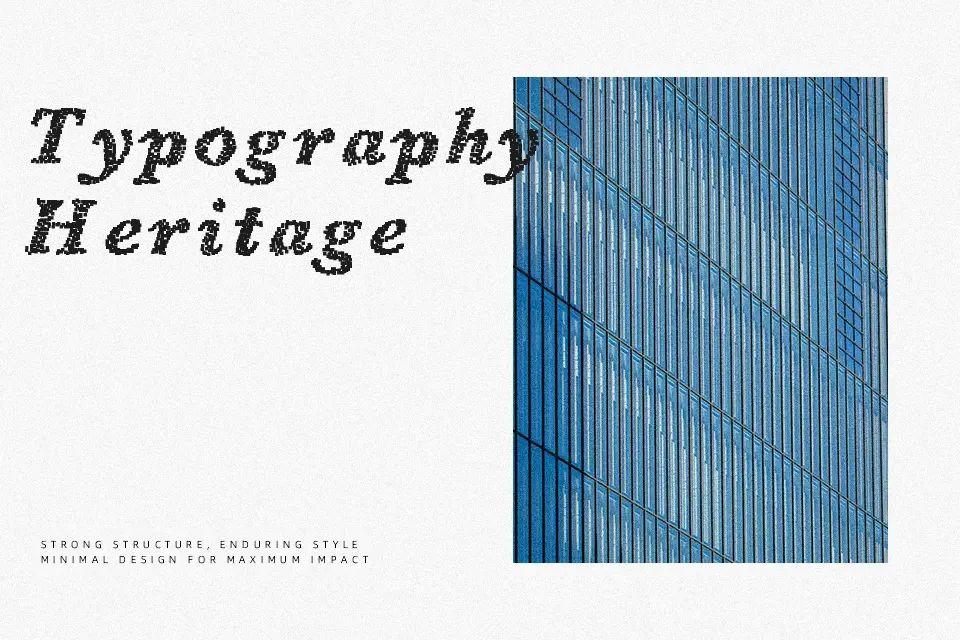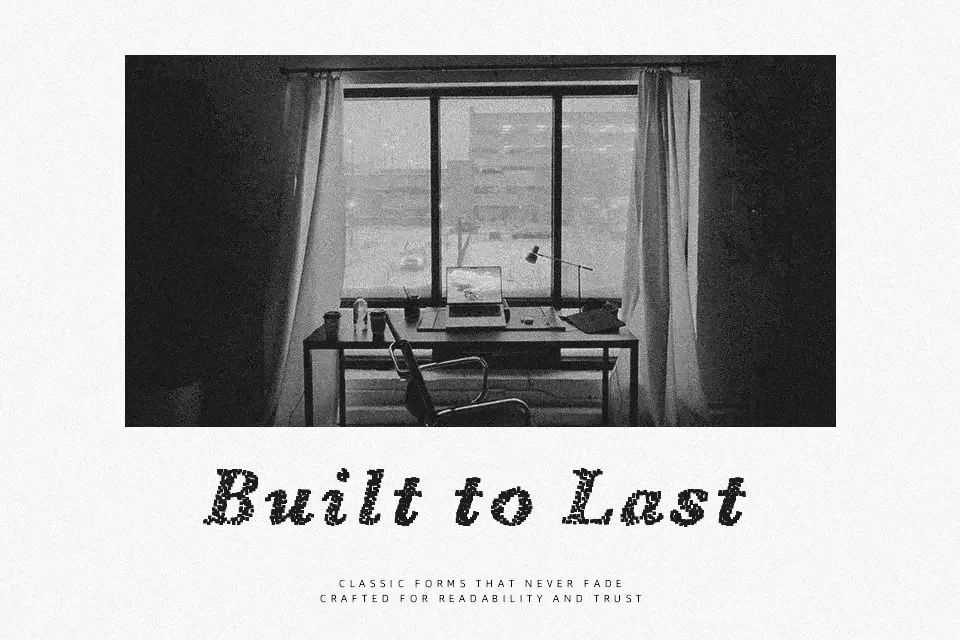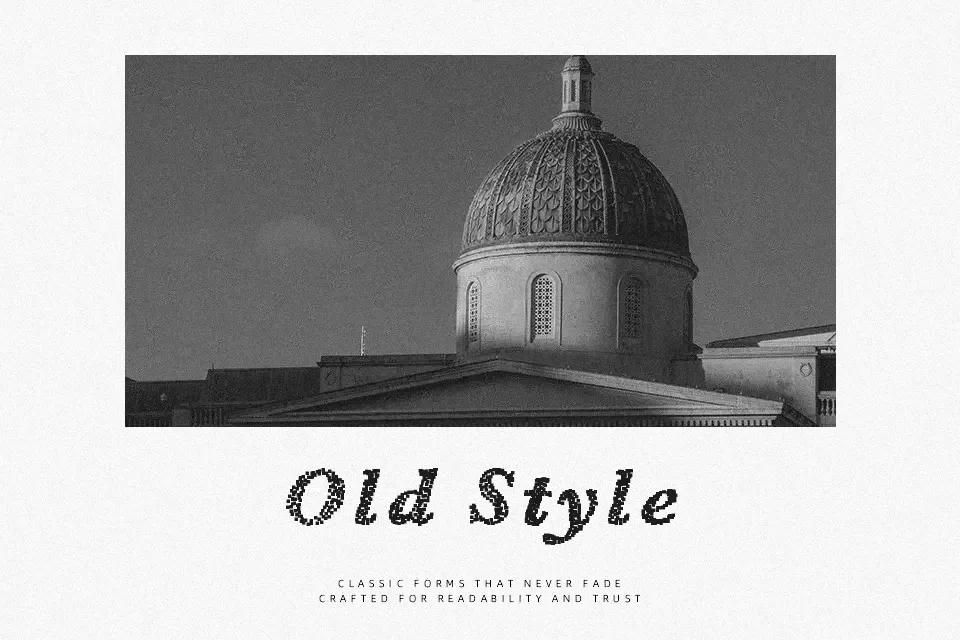
Bleary Days Font
Bleary Days is a distressed serif italic typeface that captures the raw charm of worn letterpress printing. Its characters feature a distinct forward lean, rough edges, and a gritty surface texture that immediately commands attention. The weathered structure gives the letterforms an aged, lived-in personality rather than a digitally pristine finish. This font excels in large-scale applications like edgy posters, bold editorial headlines, and grunge-inspired branding where a vintage aesthetic is essential. However, due to its heavily textured strokes, it struggles in small body text or corporate UI environments requiring strict legibility. Compared to standard clean serifs, Bleary Days delivers a dramatic voice, serving as a powerful typographic asset for projects needing a gritty, historical atmosphere.
– Large editorial headlines requiring a vintage touch
– Grunge-inspired poster designs
– Rough and textured branding materials
– Small body text or dense paragraphs
– Corporate user interfaces prioritizing legibility
– Clean and minimalist digital layouts
Perfect for branding, editorial, and headline, with a dramatic and decorative style.